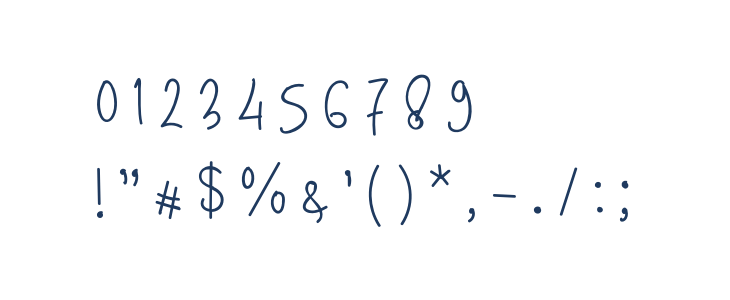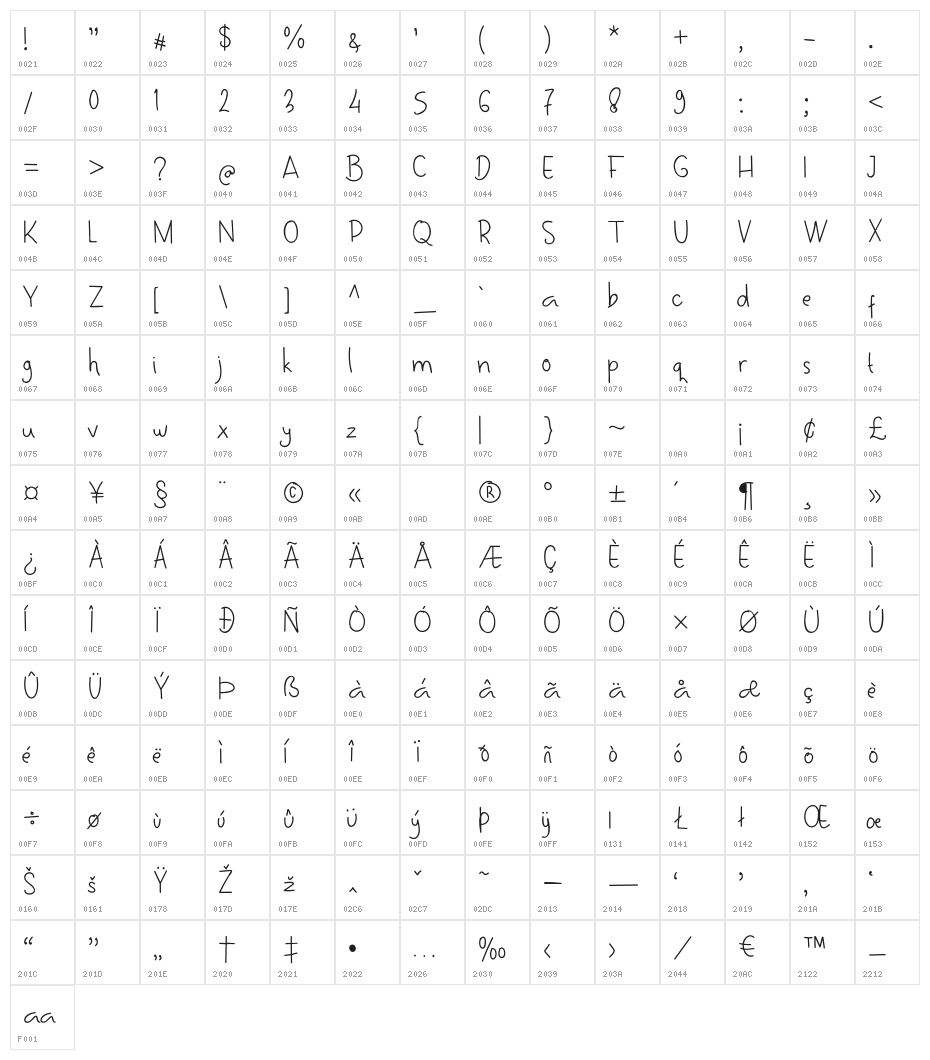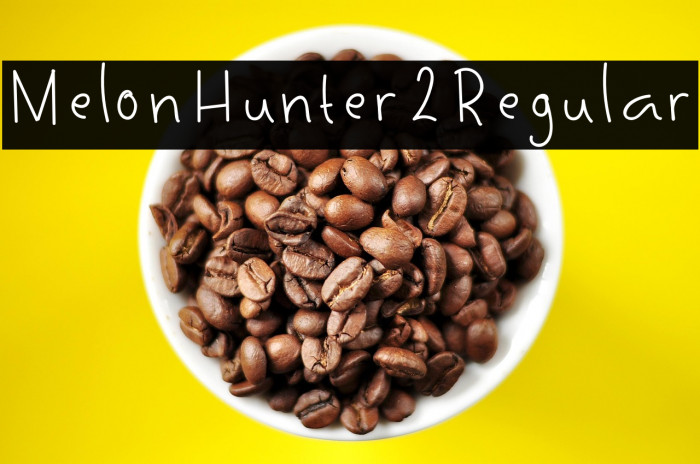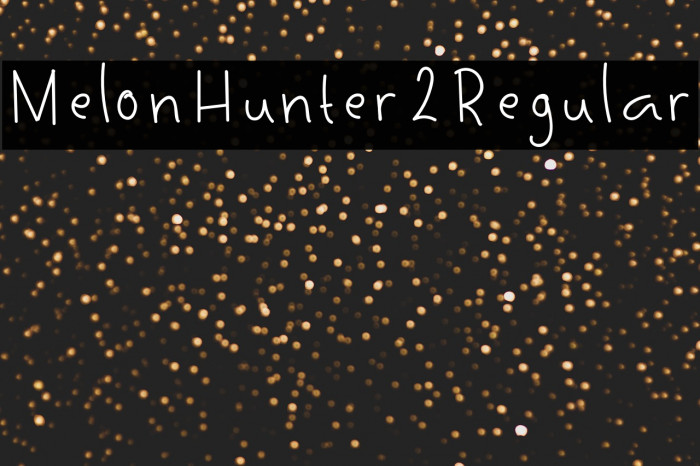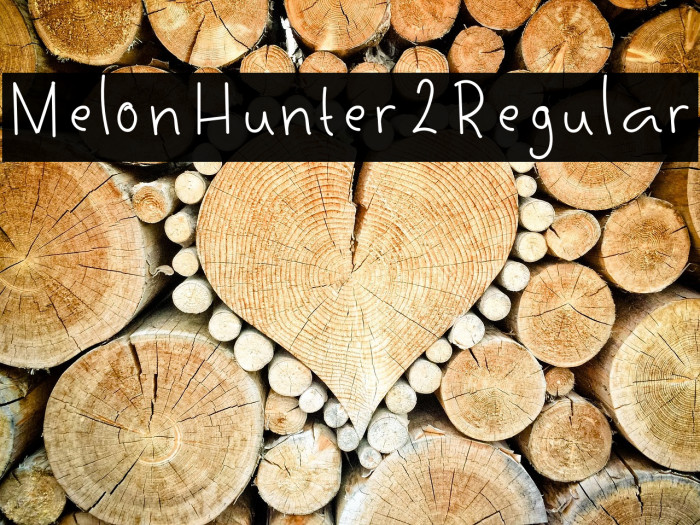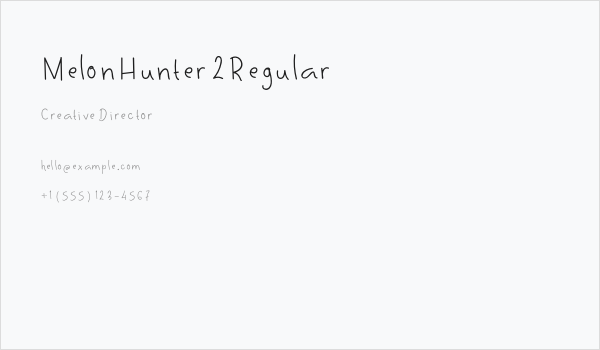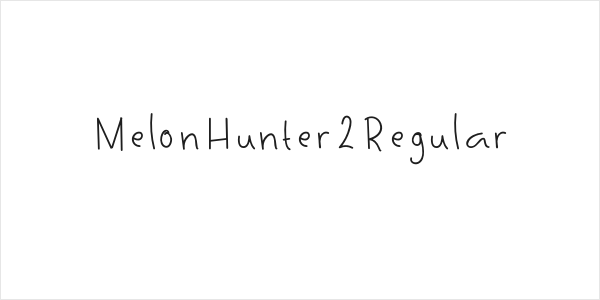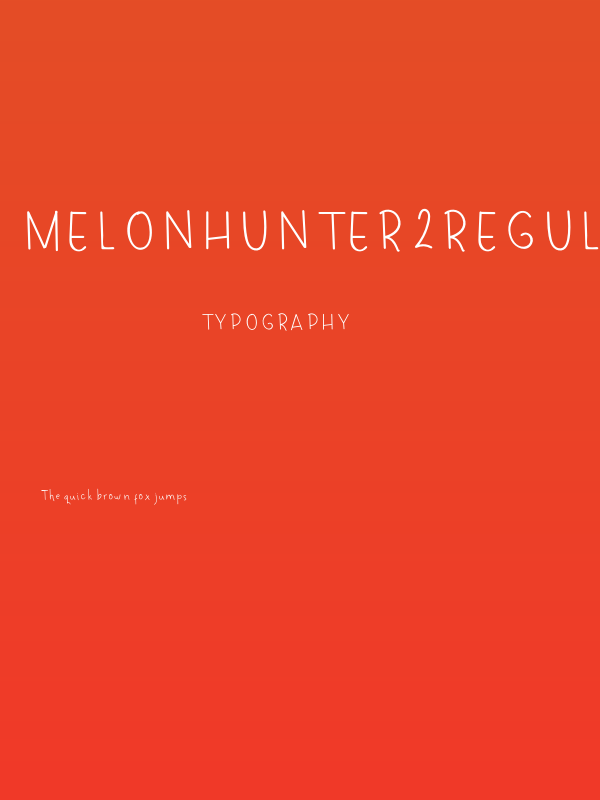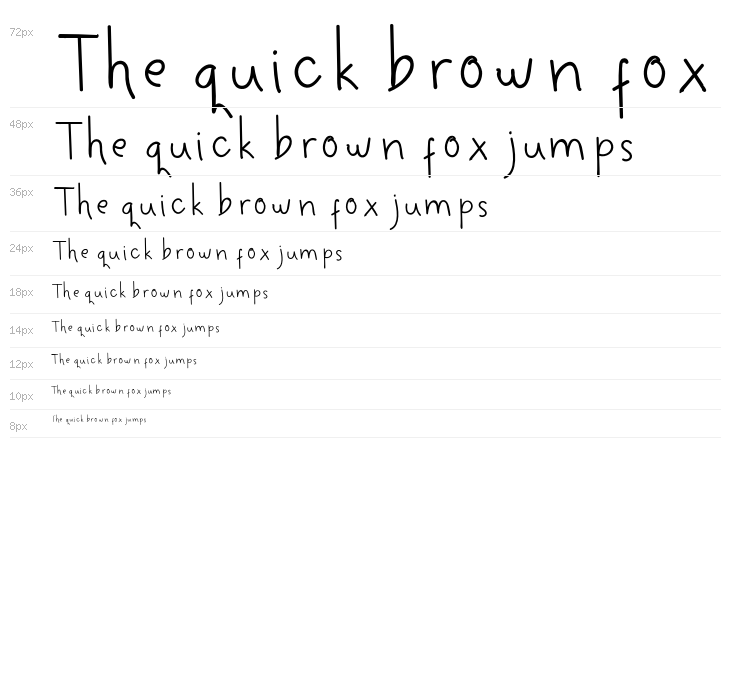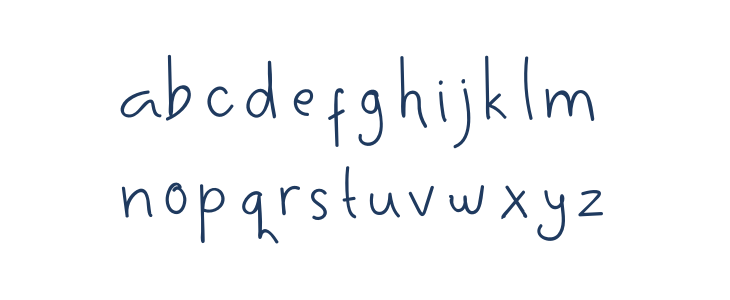
MelonHunter2Regular Font
MelonHunter2Regular Description
This font features a playful and casual handwritten style, characterized by its slightly irregular and organic letterforms. The strokes are smooth and rounded, giving it a friendly and approachable appearance. The uppercase letters maintain a consistent height, while the lowercase letters exhibit a charming variety in their ascenders and descenders. The numerals are clear and easy to read, complementing the overall informal aesthetic. Special characters are included, maintaining the same whimsical style, making this font versatile for various creative applications.
Overall StyleCasual
Use CaseHeadlines, Logos, Informal Text
Proposed ProjectsIdeal for greeting cards, children's books, playful branding, and social media graphics.